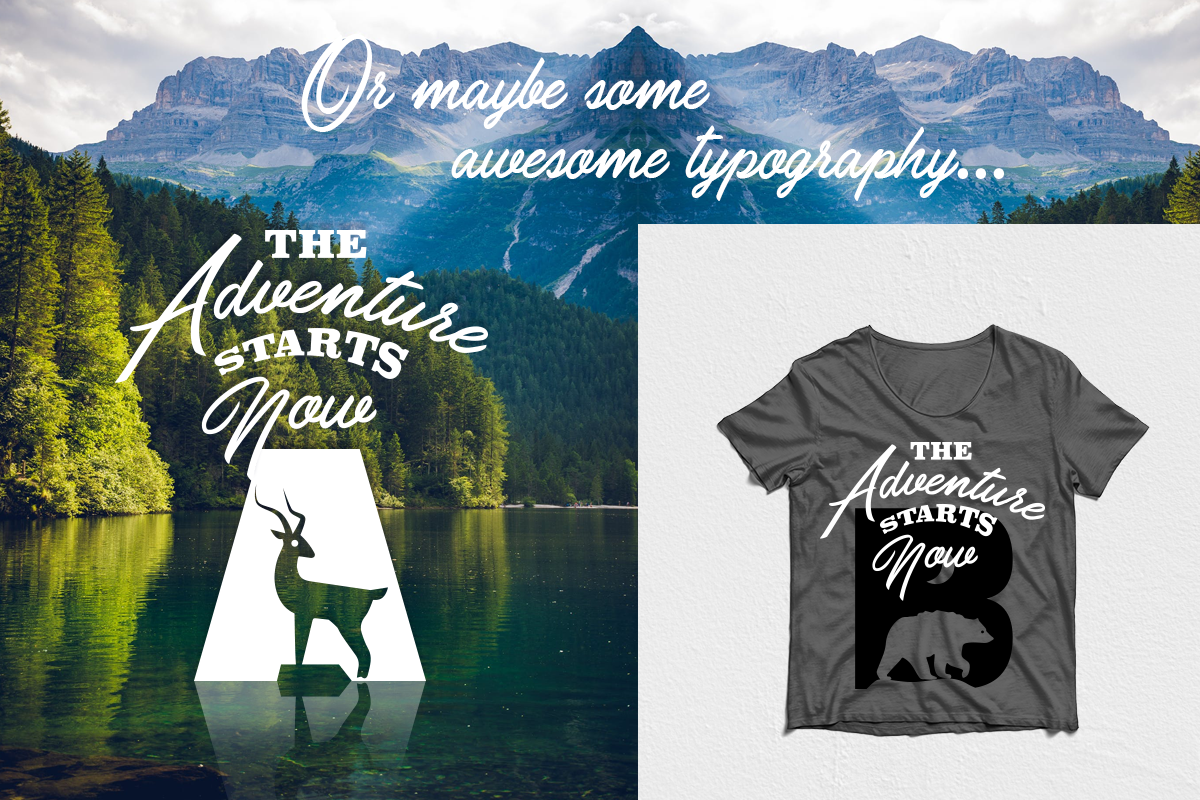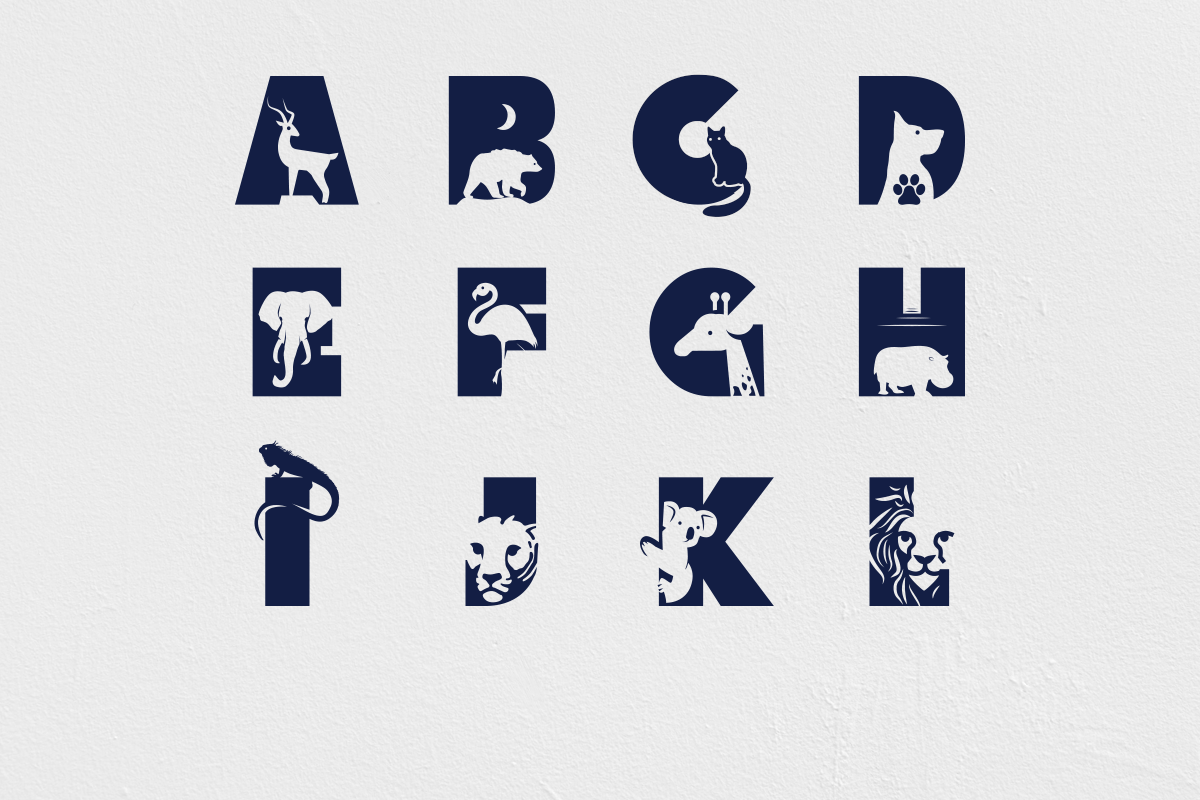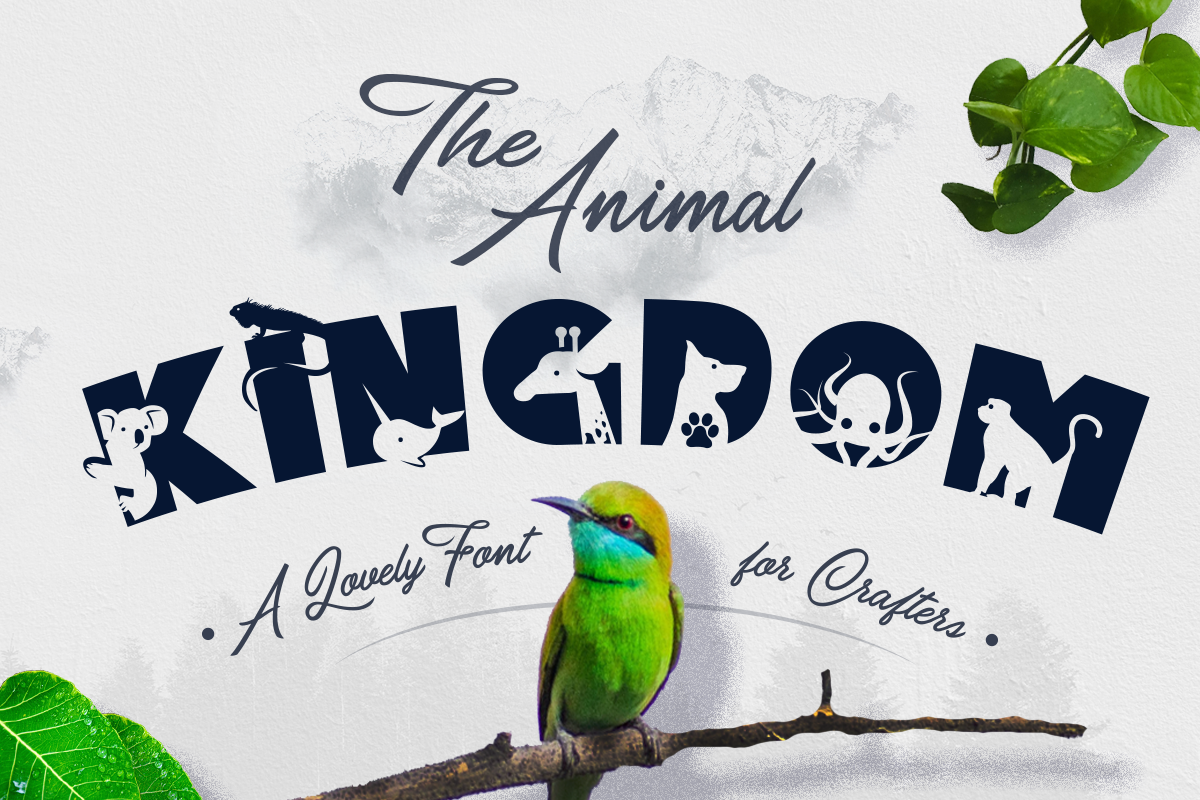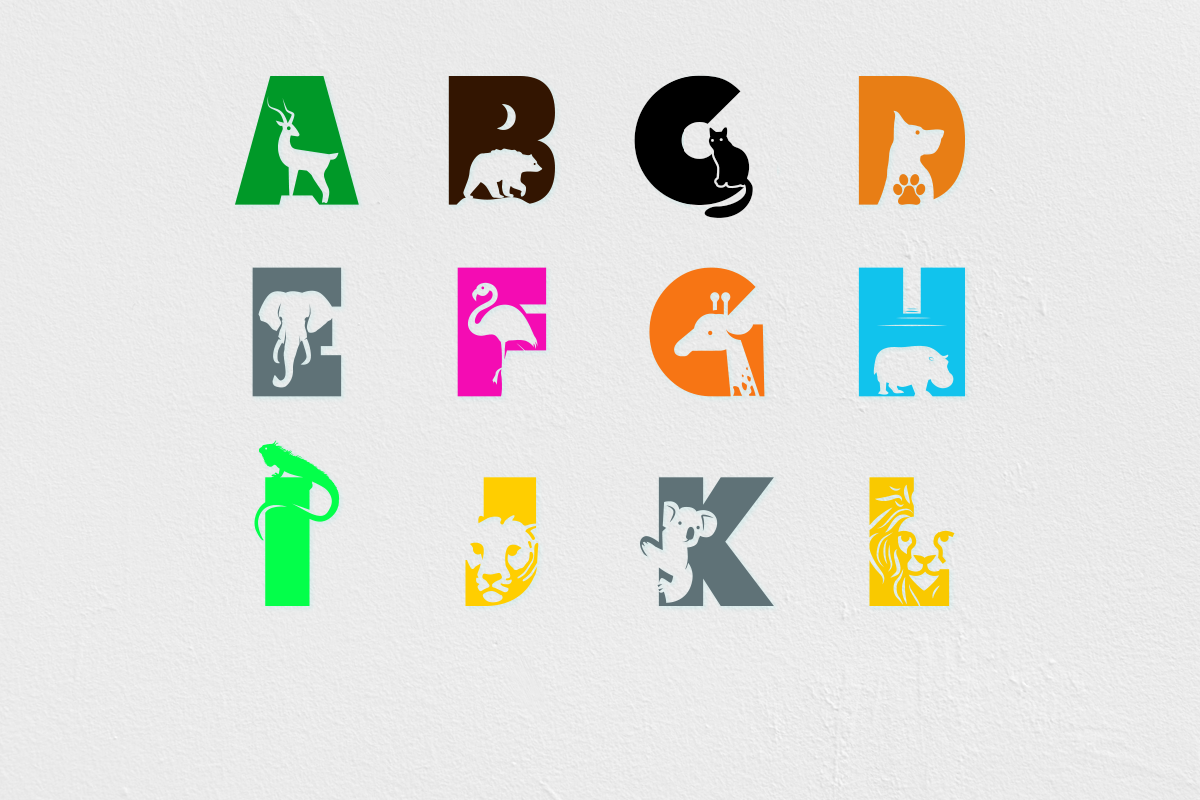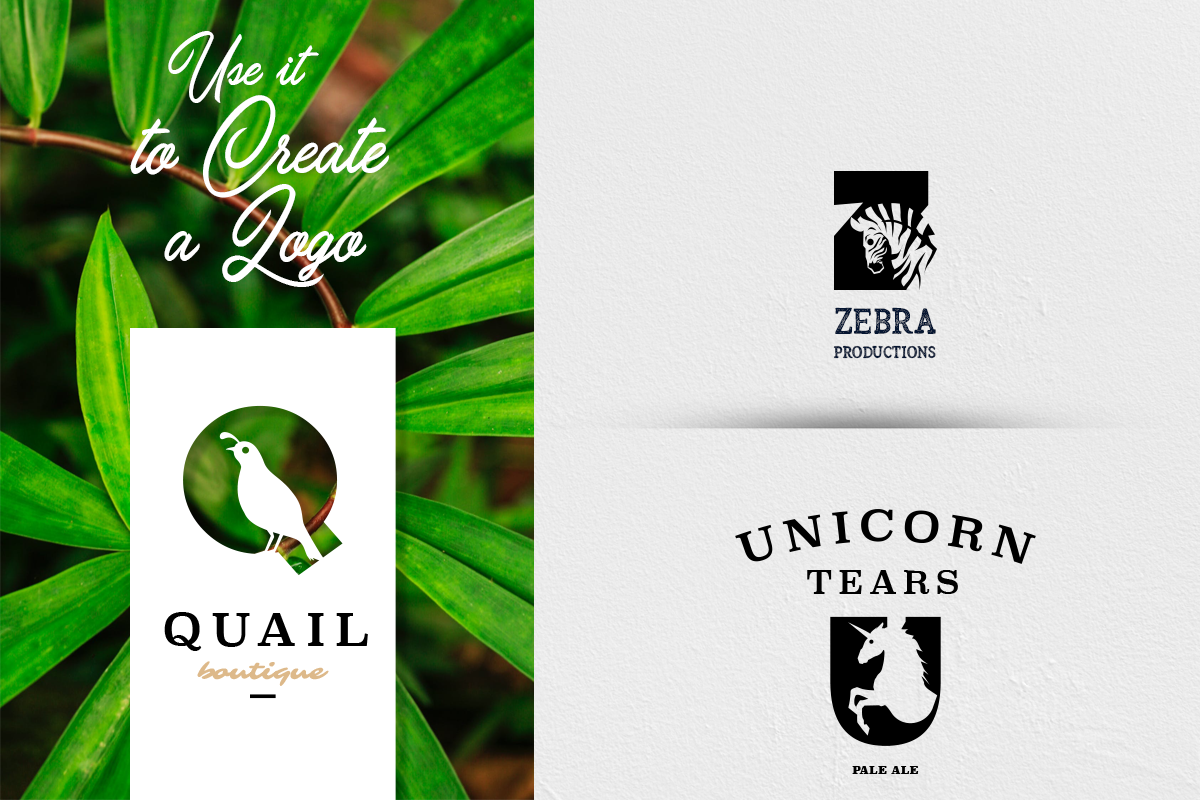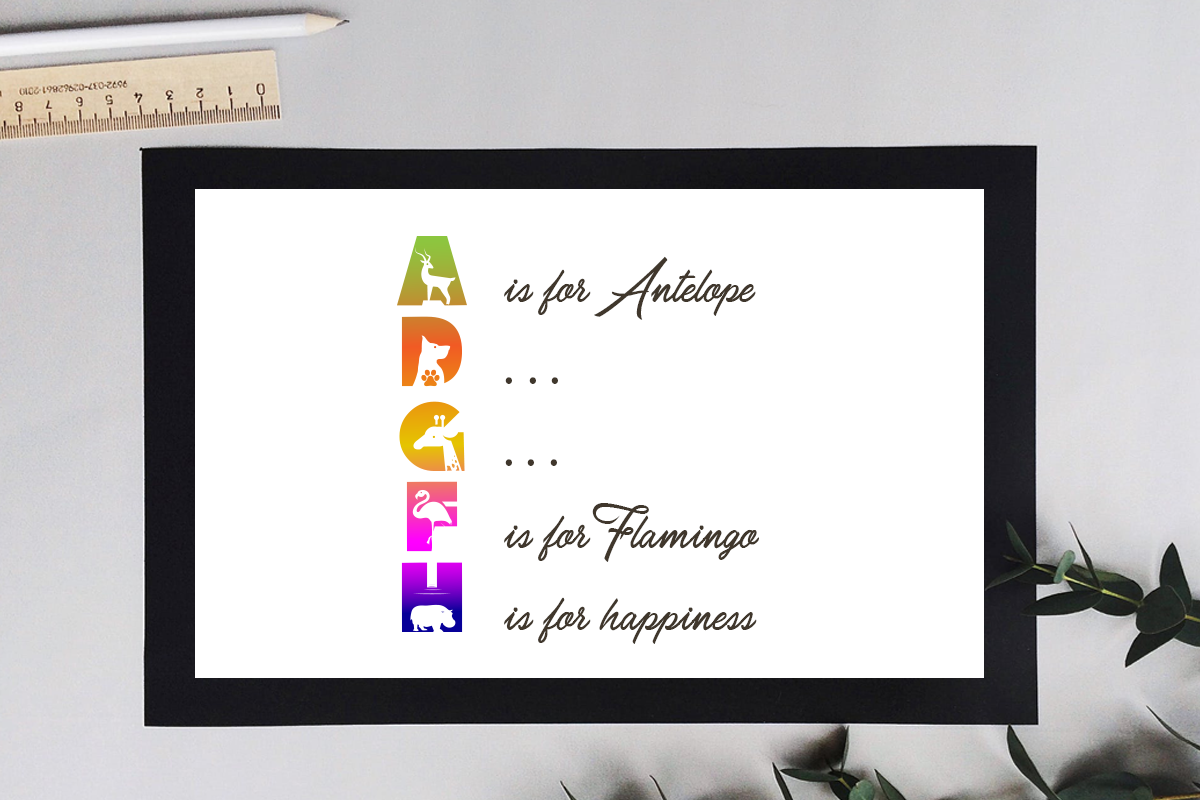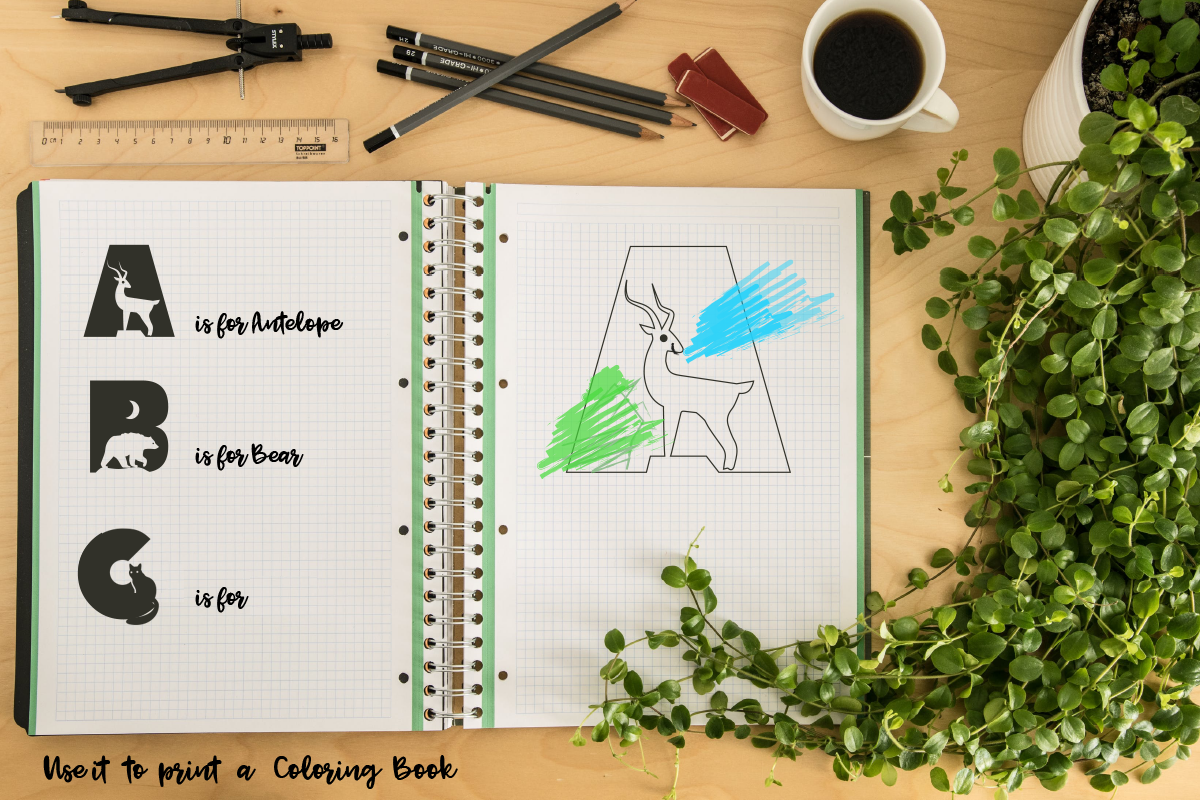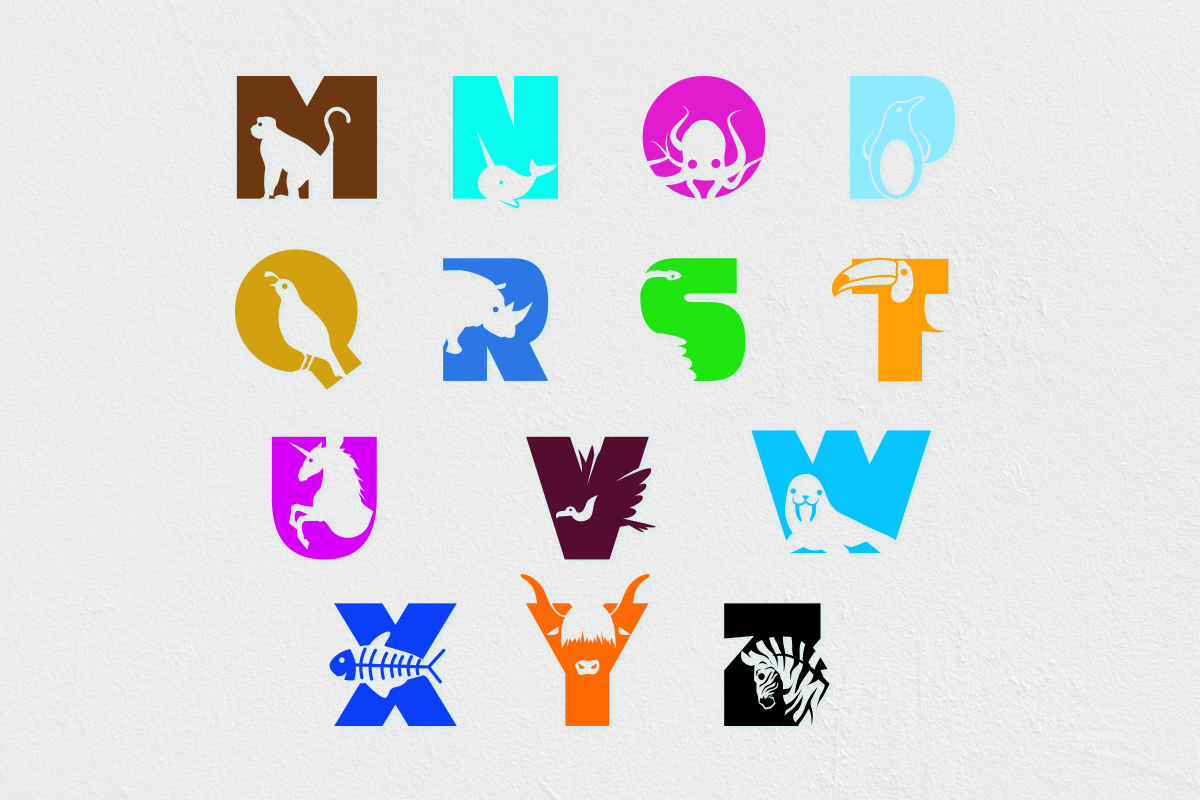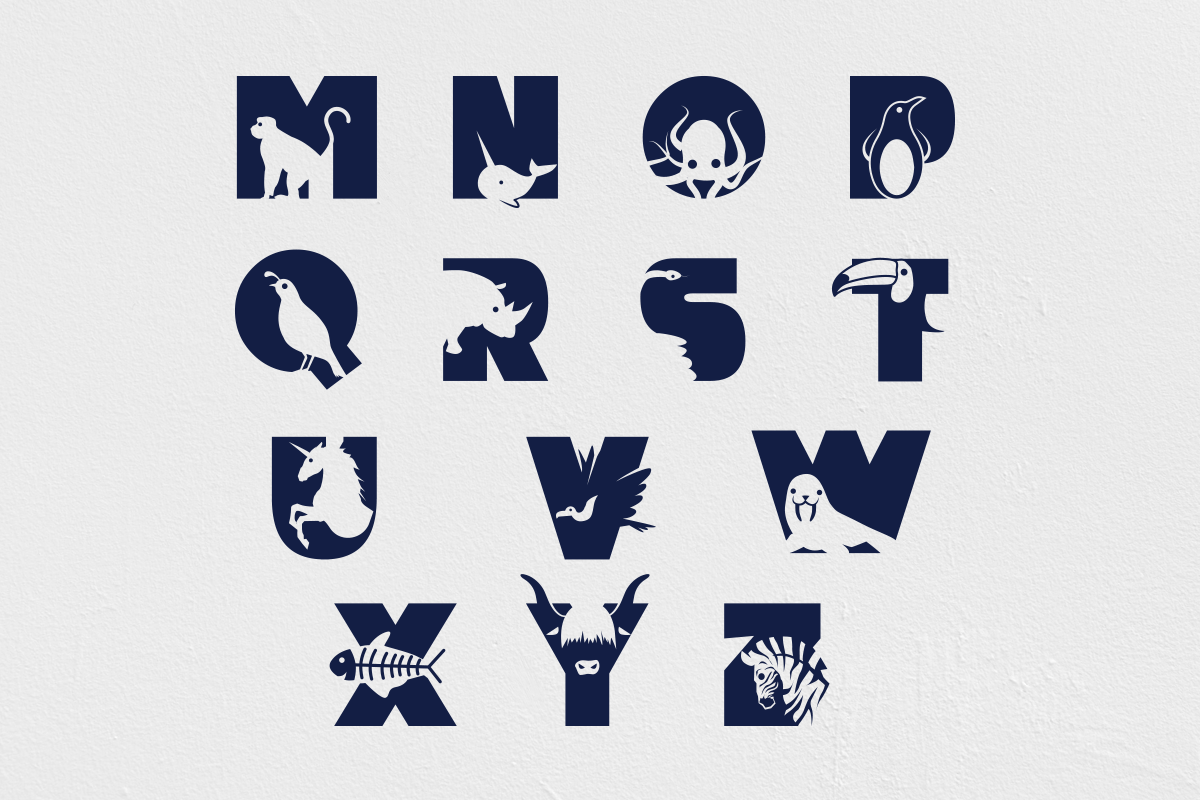
Animal Kingdom Font
Animal Kingdom is a lovely font for Silhouette Cameo & Cricut users that I had in mind for a while. It's a thick sans-serif font with simple cutout shapes, making it very easy to use in craft projects, and not only
Each letter has been thoroughly cleaned, reducing the number of nodes to a minimum. This means the cutting time takes much less compared to other fonts.
You can use it this font in your craft projects, as papercuts, coloring books, branding, or pretty much anything that you can think of!
- The Animal Kingdom Font with A-Z uppercase letters. No numbers or punctuation included.